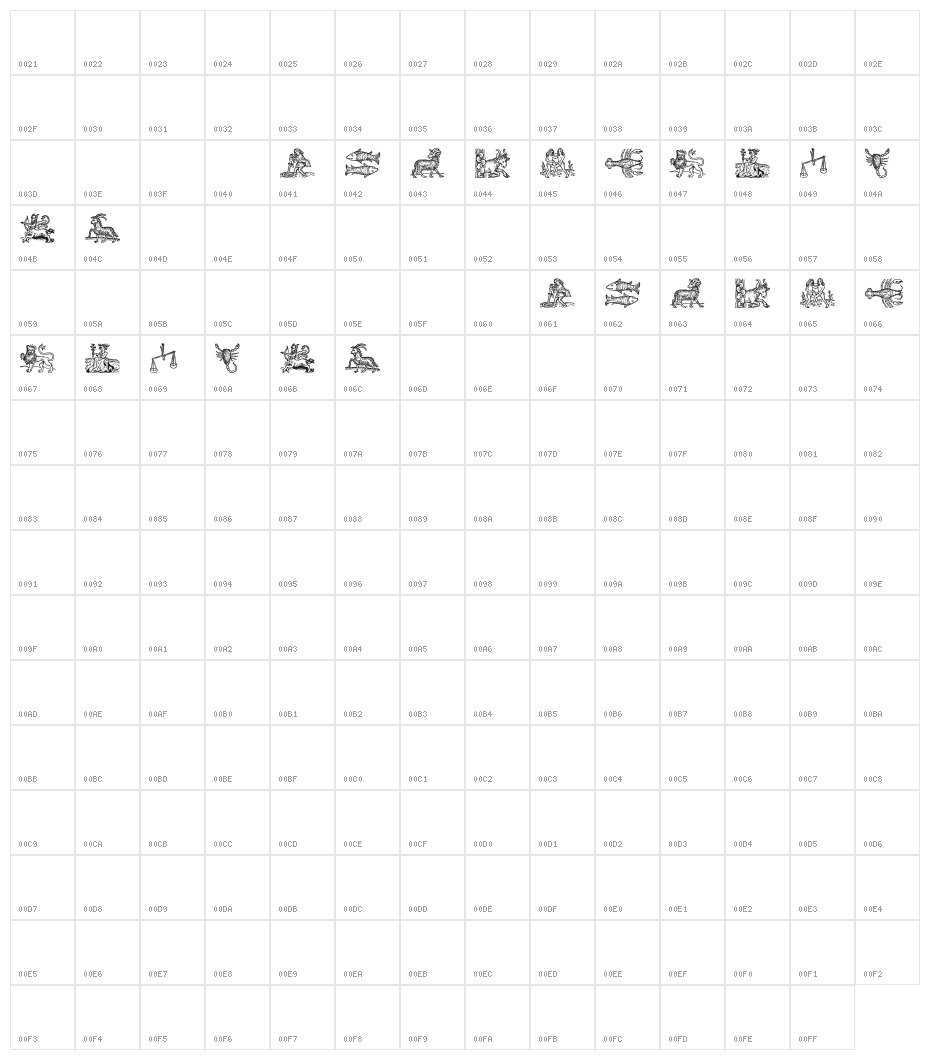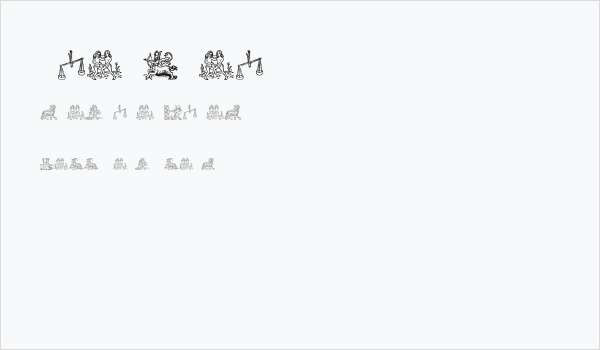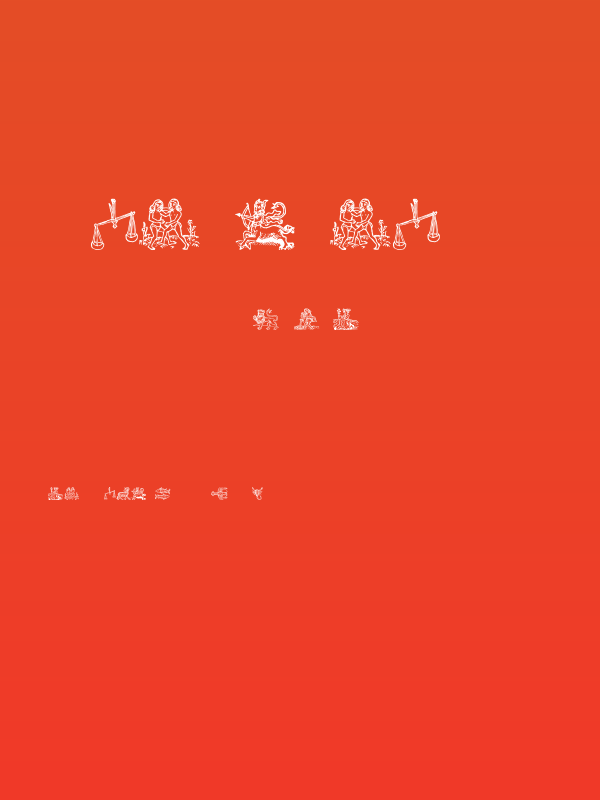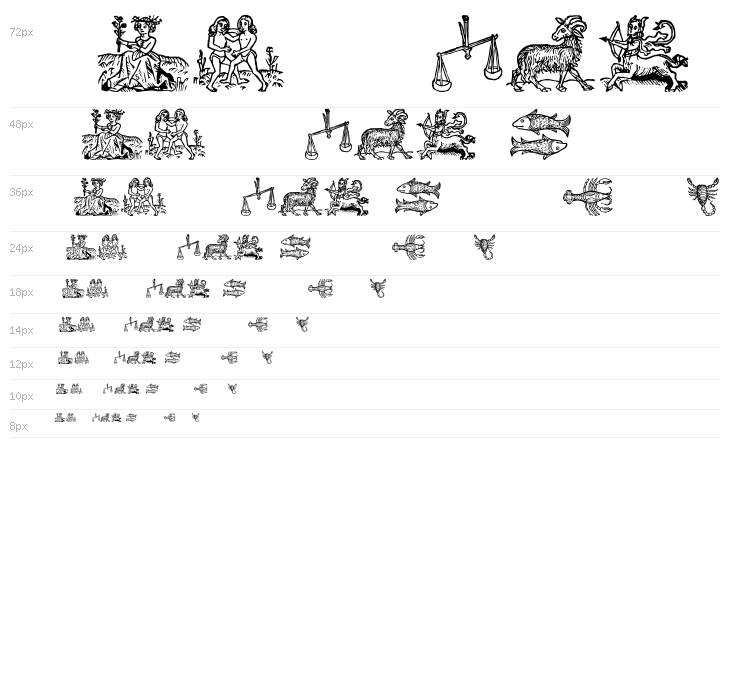
Tierkreis 3 Font
Tierkreis 3 Description
This font is a decorative and thematic representation of the zodiac signs, with each character intricately designed to depict a different astrological symbol. The style is highly illustrative, featuring detailed line work and artistic embellishments that give each letter a unique and ornate appearance. The characters are not traditional alphabetic forms but rather artistic interpretations, making them ideal for thematic and creative projects. The overall look is both whimsical and sophisticated, capturing the essence of each zodiac sign with a blend of fantasy and elegance.
| Use Case | Logos, Posters, Thematic Designs |
| Proposed Projects | Ideal for astrological-themed designs, creative projects, event invitations, and decorative posters. |